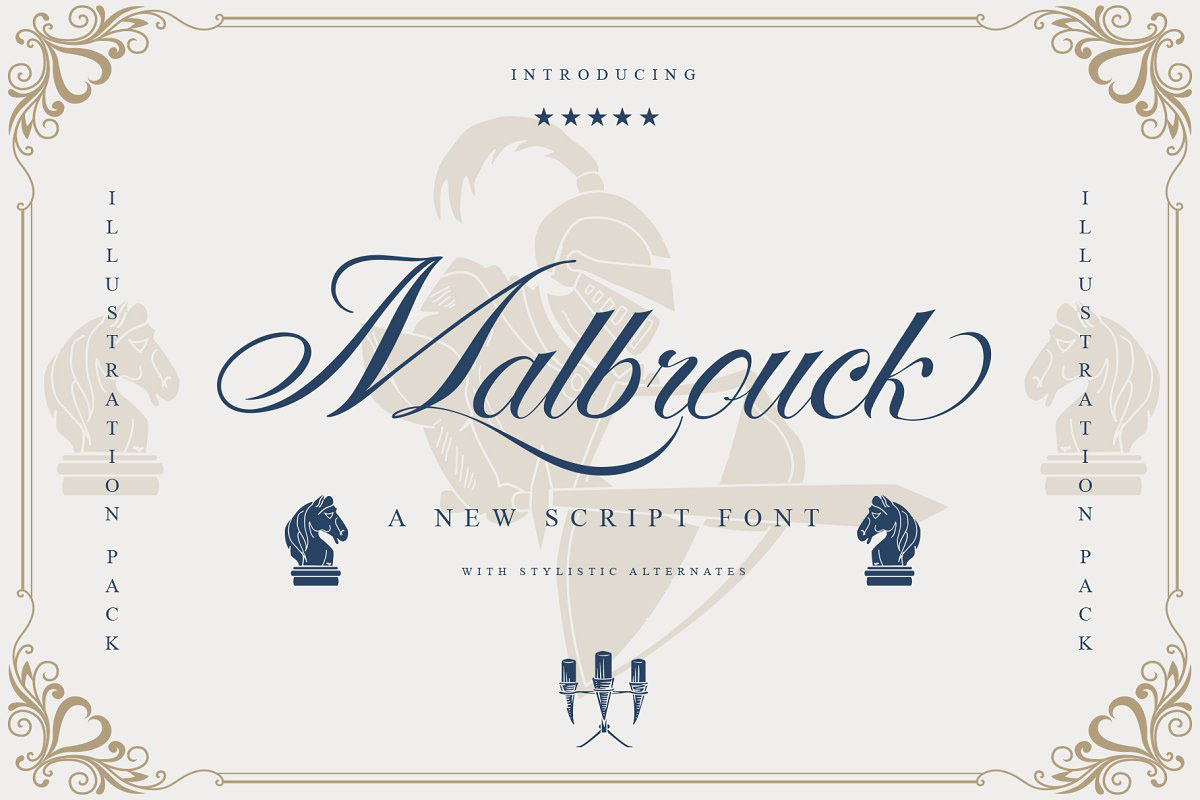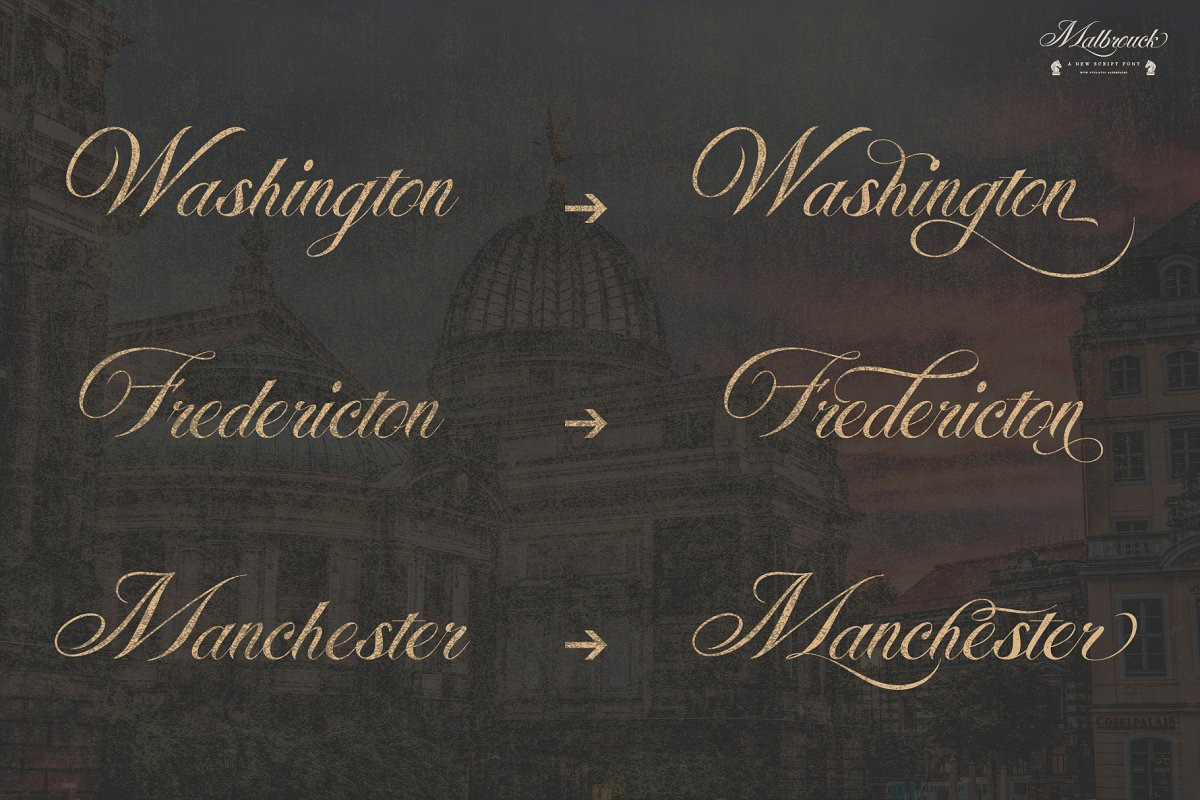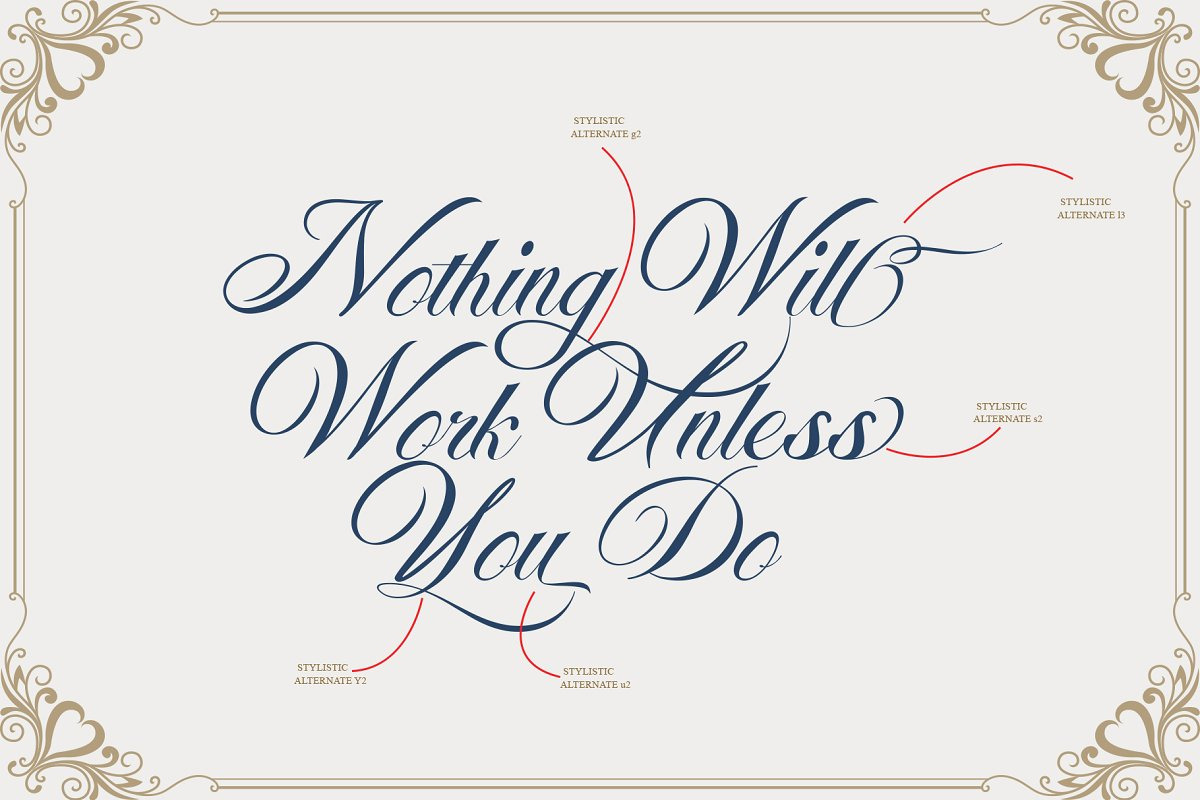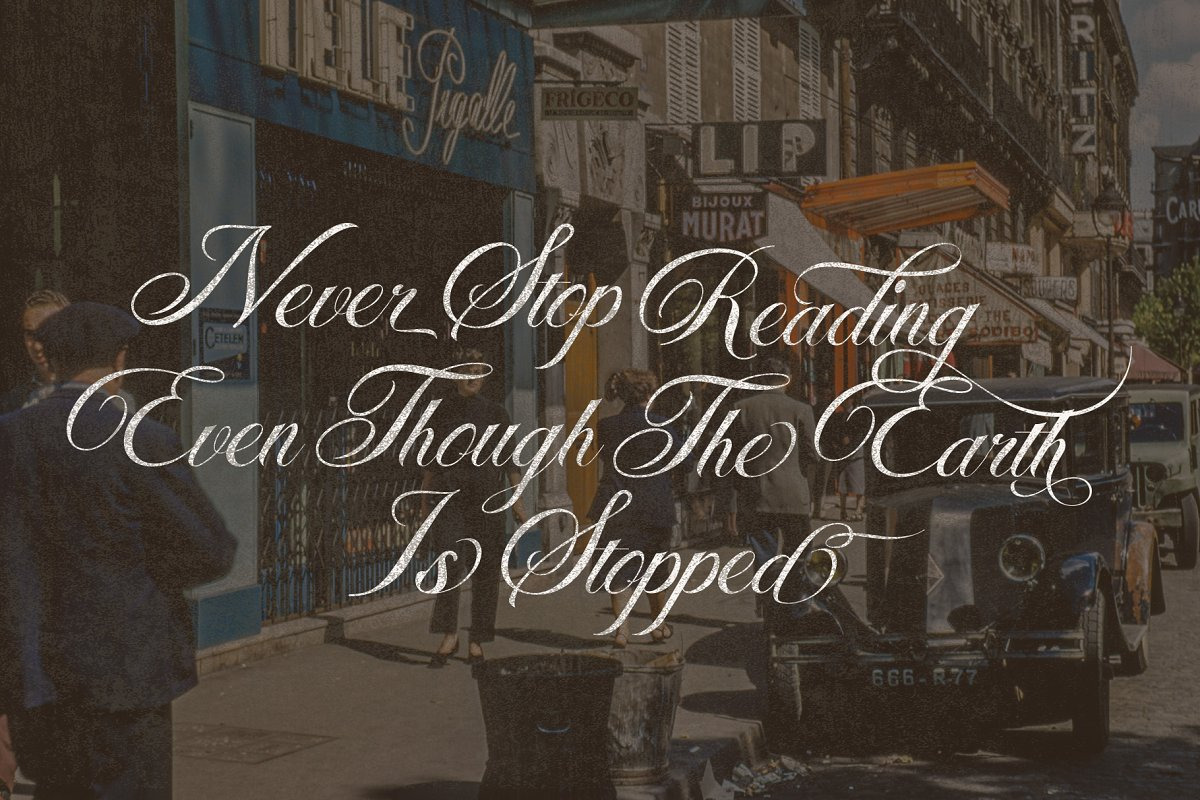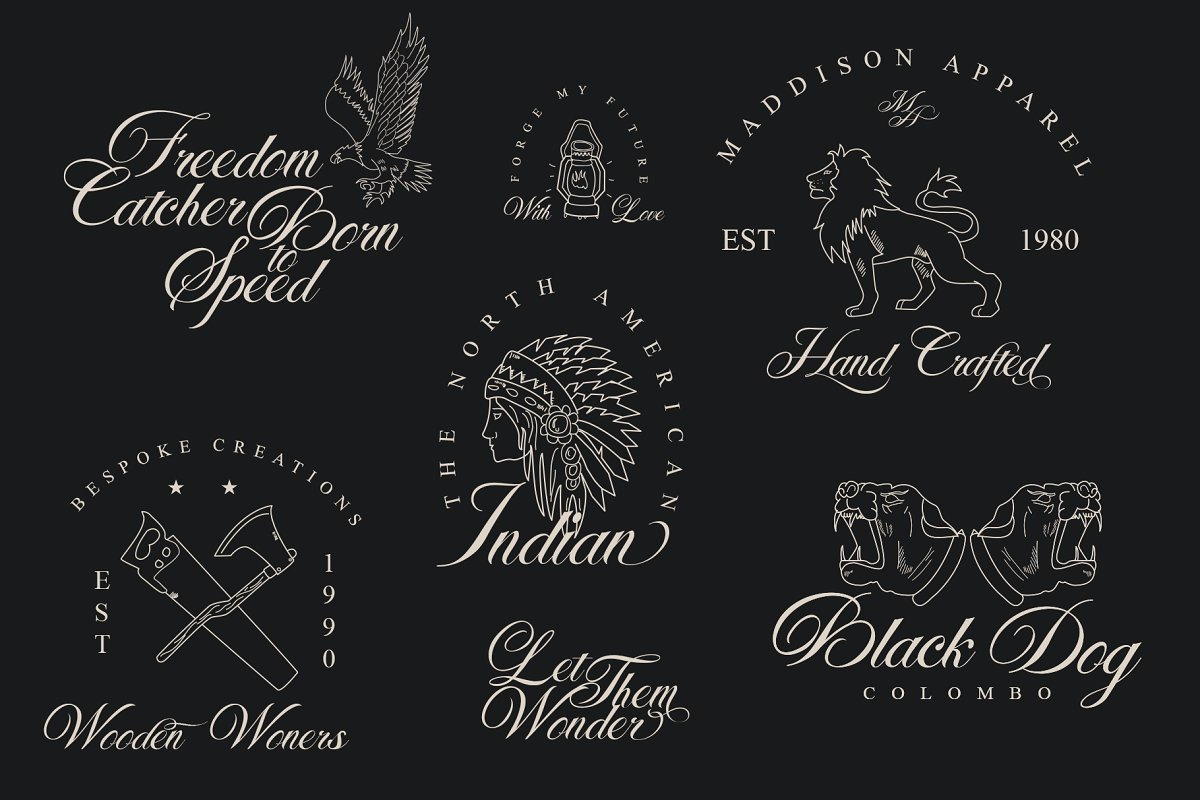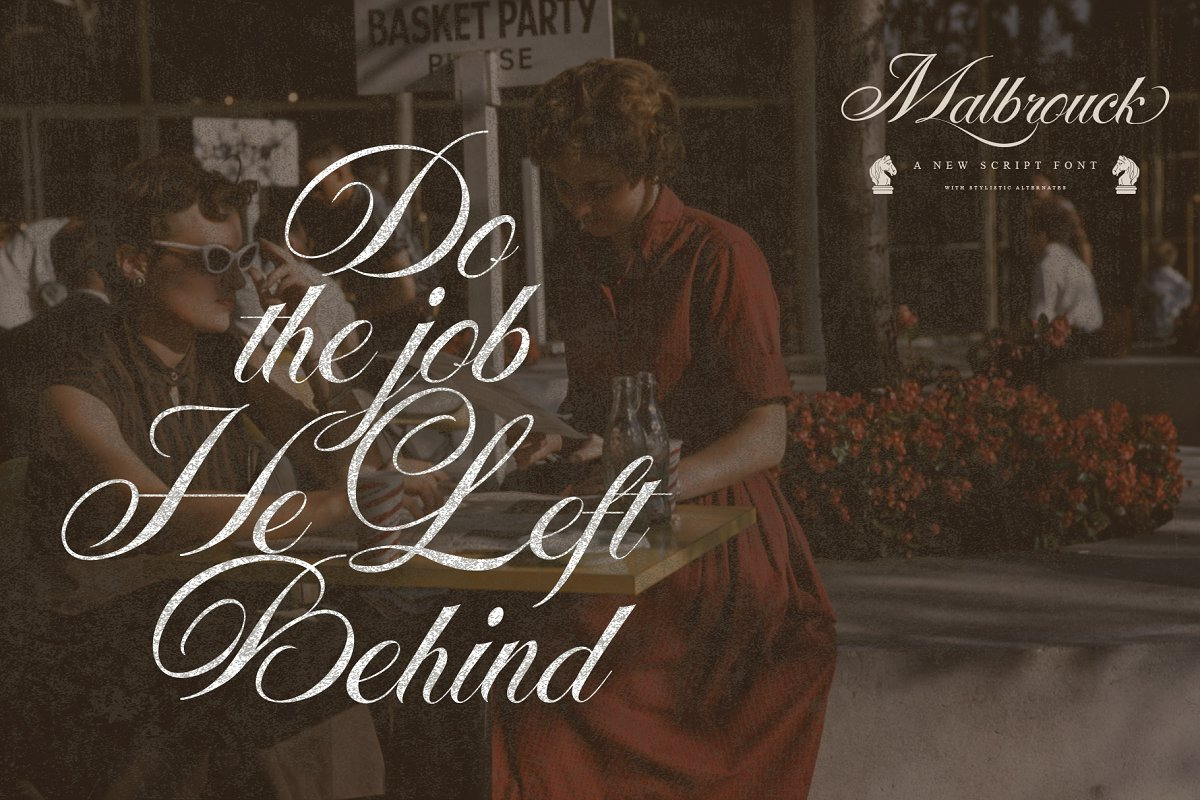
Malbrouck Classic Script Font
A font that is inspired by vintage decorative letters or cards. With ornamental vintage style and lot of stylistic alternates you can create realistic headers. There is also image font with various vintage shapes & illustrations (also included as a vector graphics). It works beautifully for personal branding and advertising. This font features uppercase, lowercase, ligatures, stylistic alternates, punctuation & numerals. Try it yourself below!